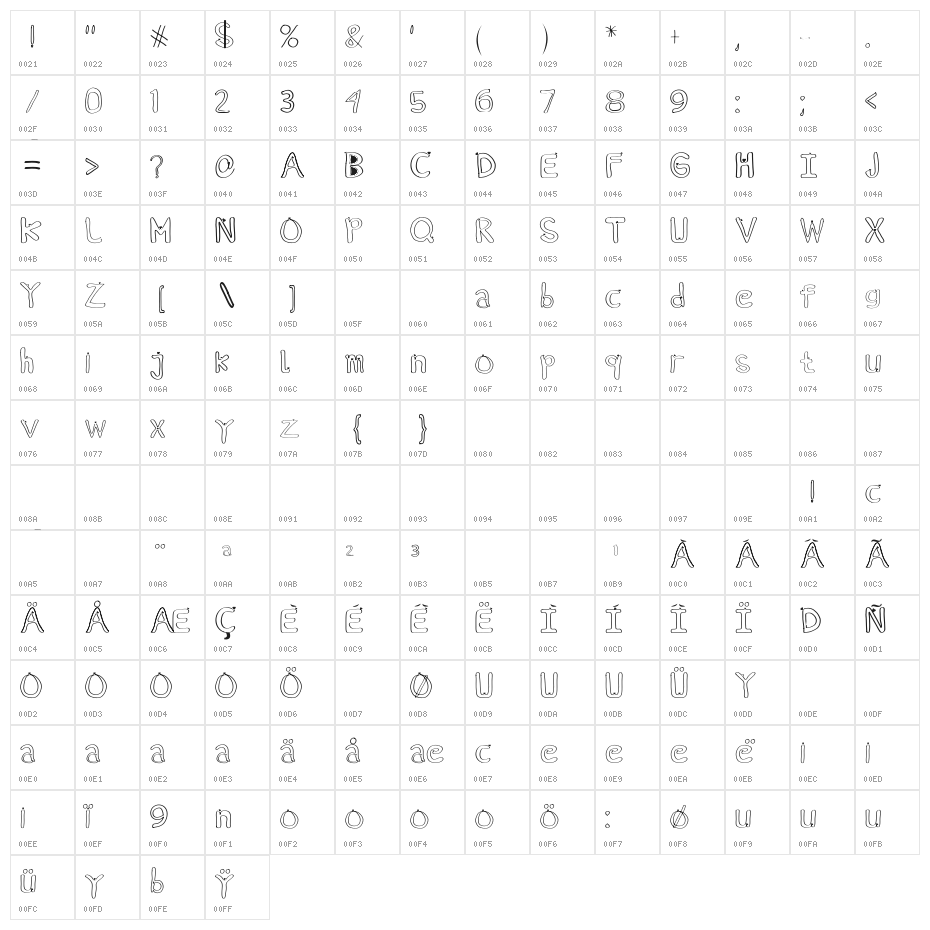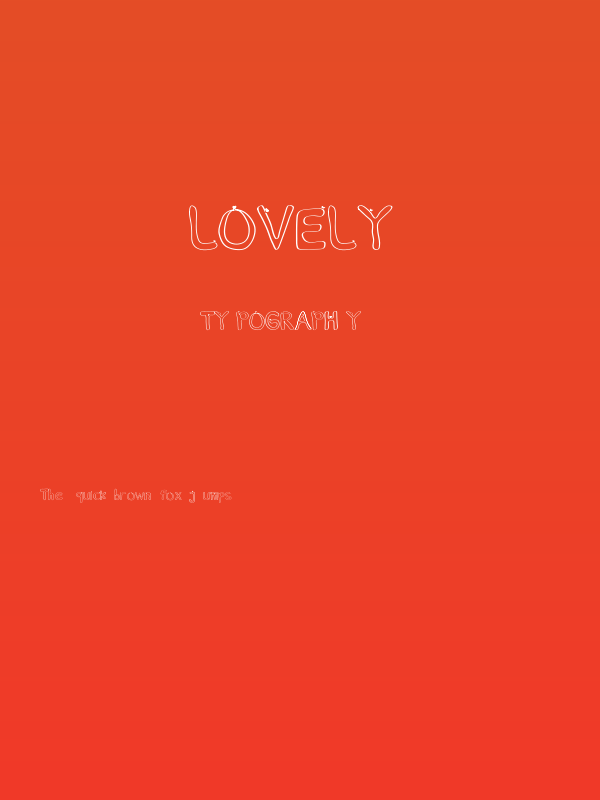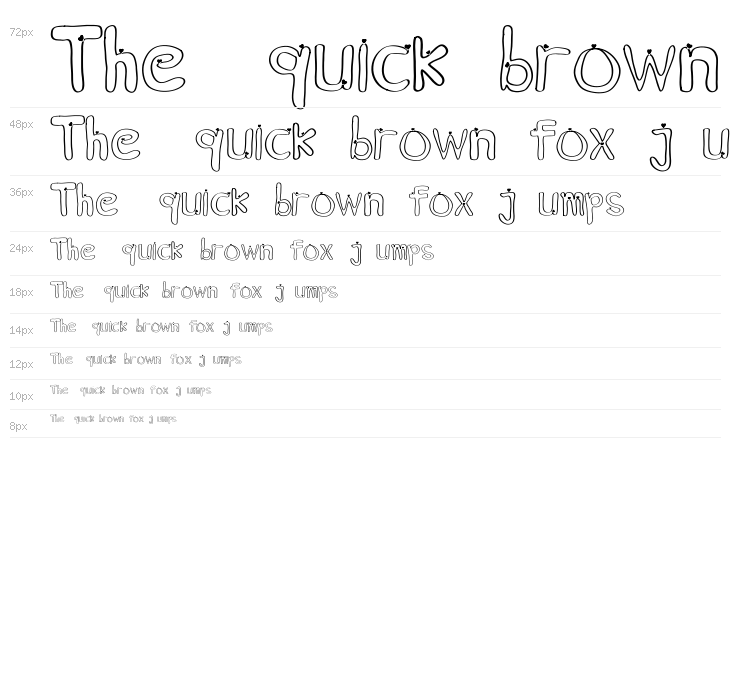
lovely Font
lovely Description
This playful and whimsical font features a unique hand-drawn style with a bubbly, cartoonish appearance. Each character is outlined with a bold stroke, giving it a lively and dynamic feel. The letters are slightly irregular, adding to the charm and informal nature of the design. The font includes both uppercase and lowercase letters, numbers, and a variety of special characters, making it versatile for different uses. Its distinctive style is perfect for projects that require a fun and engaging look.
| Overall Style | Whimsical |
| Use Case | Logos, Posters, Invitations |